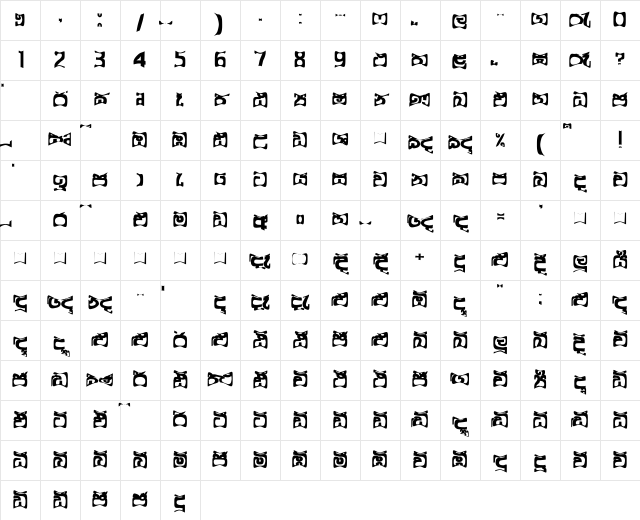
Complete 4u-Araliya. Warp Plain. glyph index. Displaying only characters natively supported by 4u-Araliya. Warp Plain. font.
4u-Araliya. Warp is a composed and adaptable typeface that performs quietly and consistently across a wide range of design contexts.